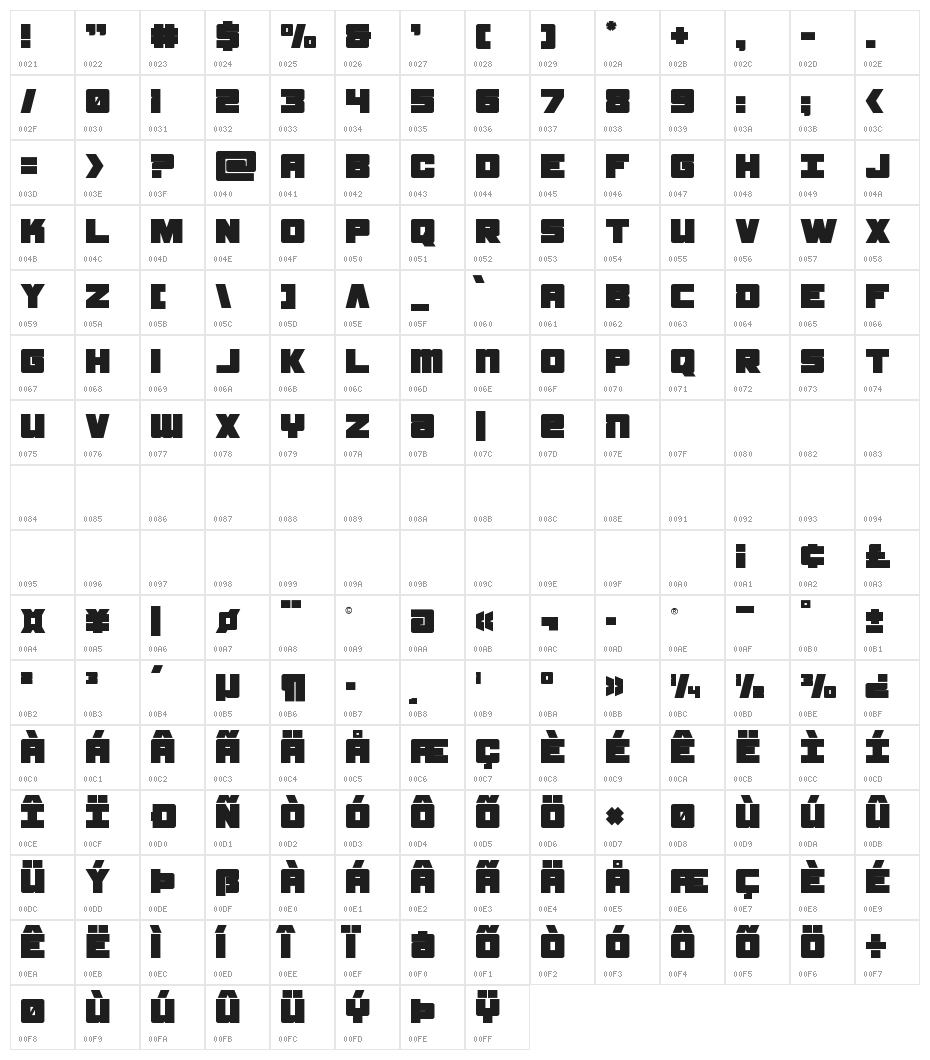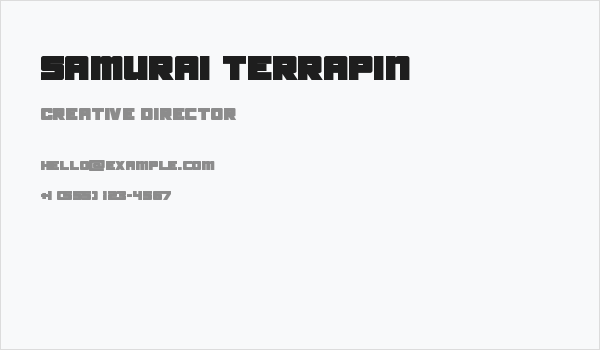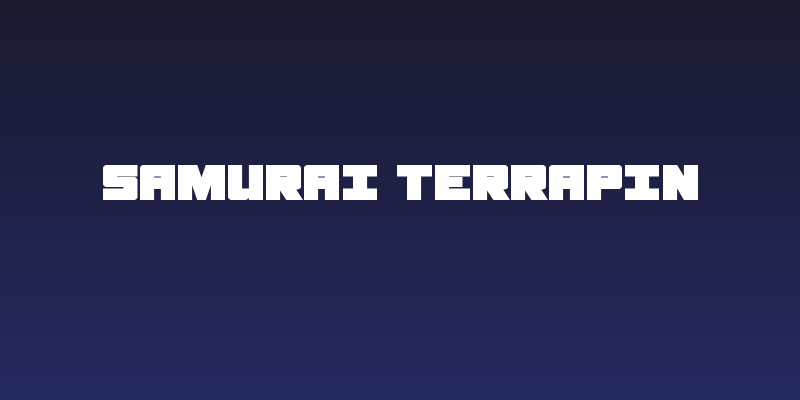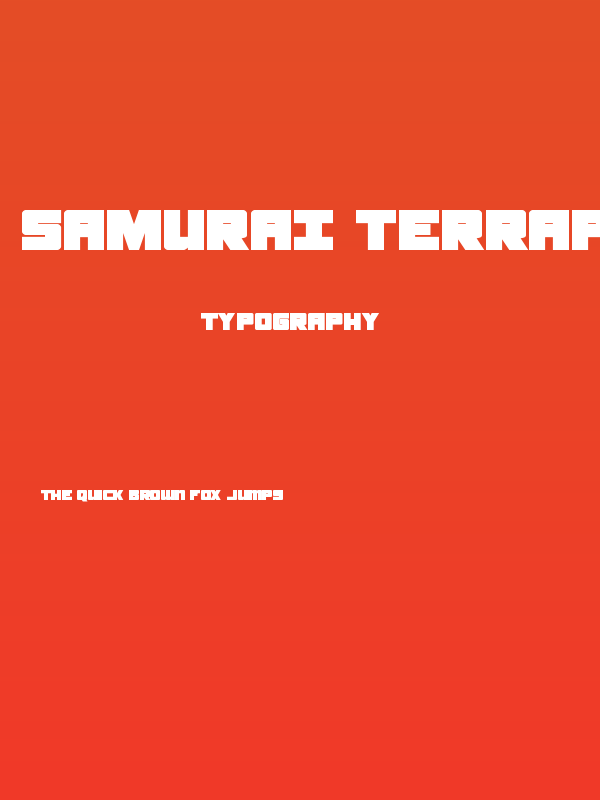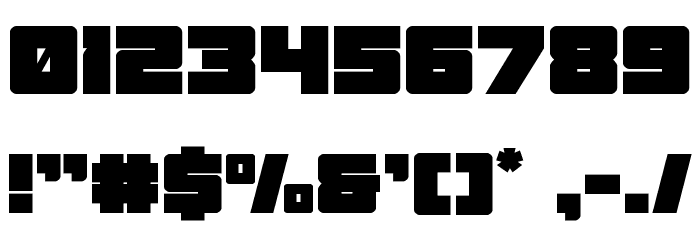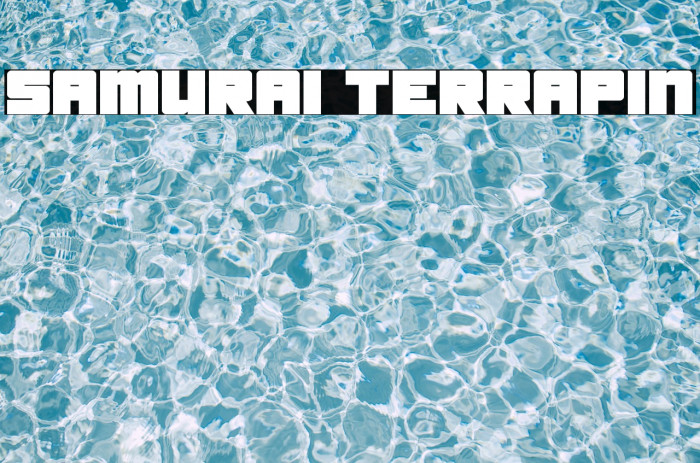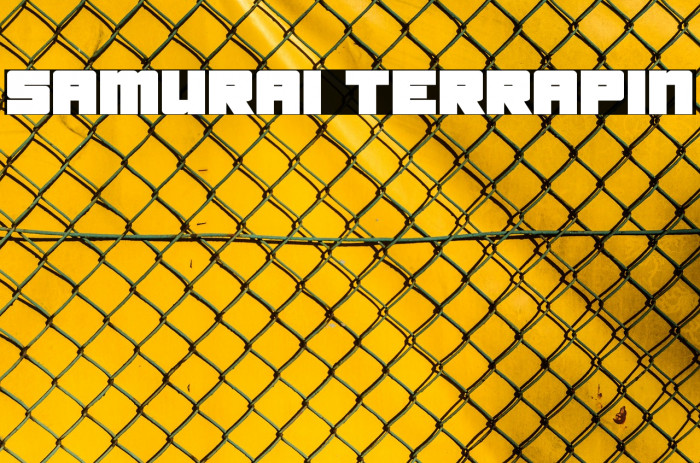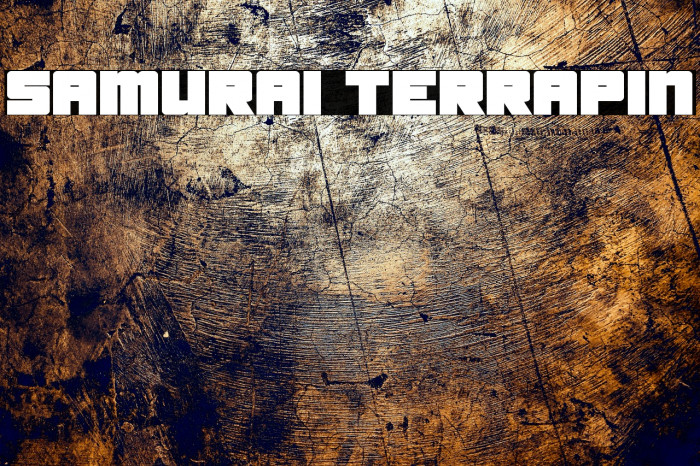
Samurai Terrapin Font
Samurai Terrapin Description
This font exhibits a bold, geometric style with a strong presence. The characters are blocky and angular, featuring sharp edges and a uniform thickness throughout. The uppercase letters are particularly striking, with a consistent height and width that creates a cohesive look. The lowercase letters maintain the same boldness, ensuring readability while retaining the font's distinctive style. Numbers and special characters are designed with the same attention to detail, making them easily distinguishable. This font's overall design is modern and impactful, suitable for projects that require a strong visual statement.
| Proposed Projects | Ideal for headlines, posters, logos, and branding materials that require a bold and modern aesthetic. |